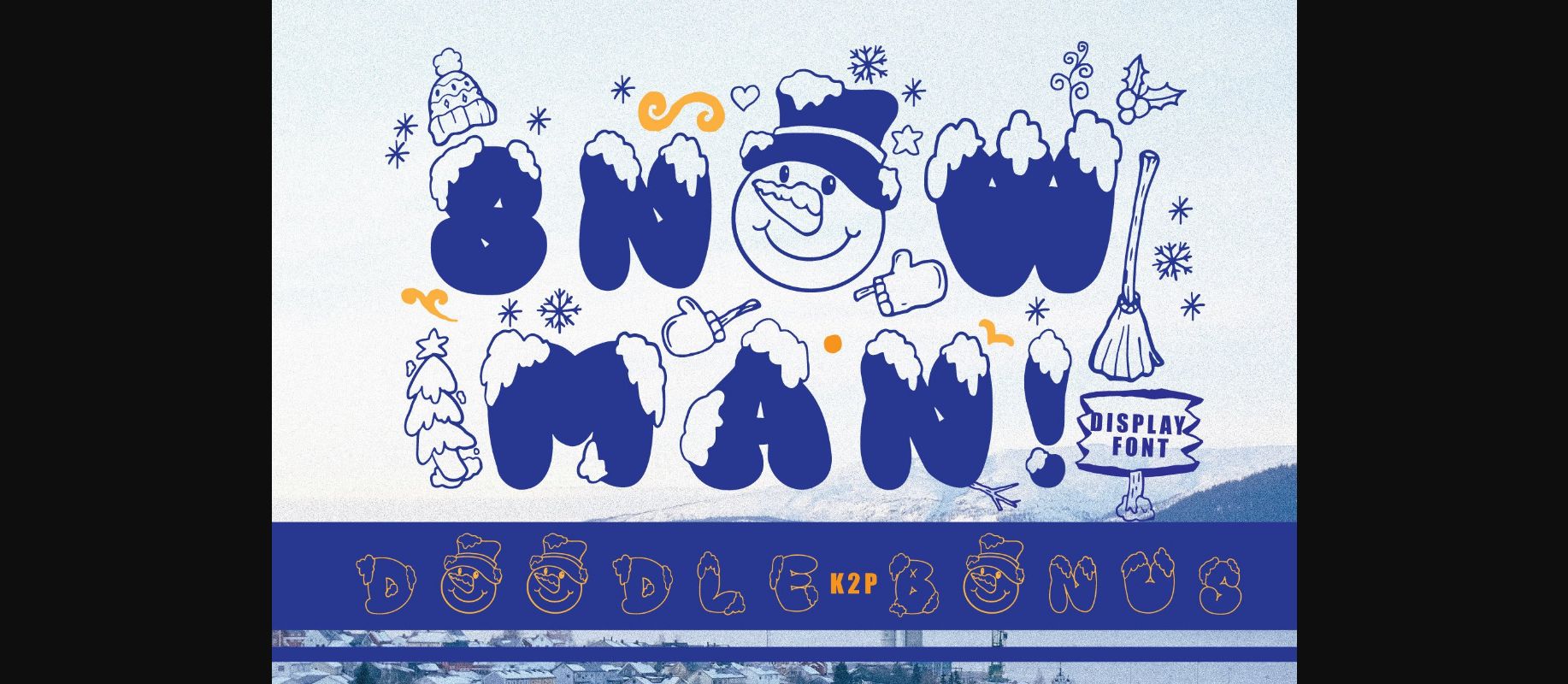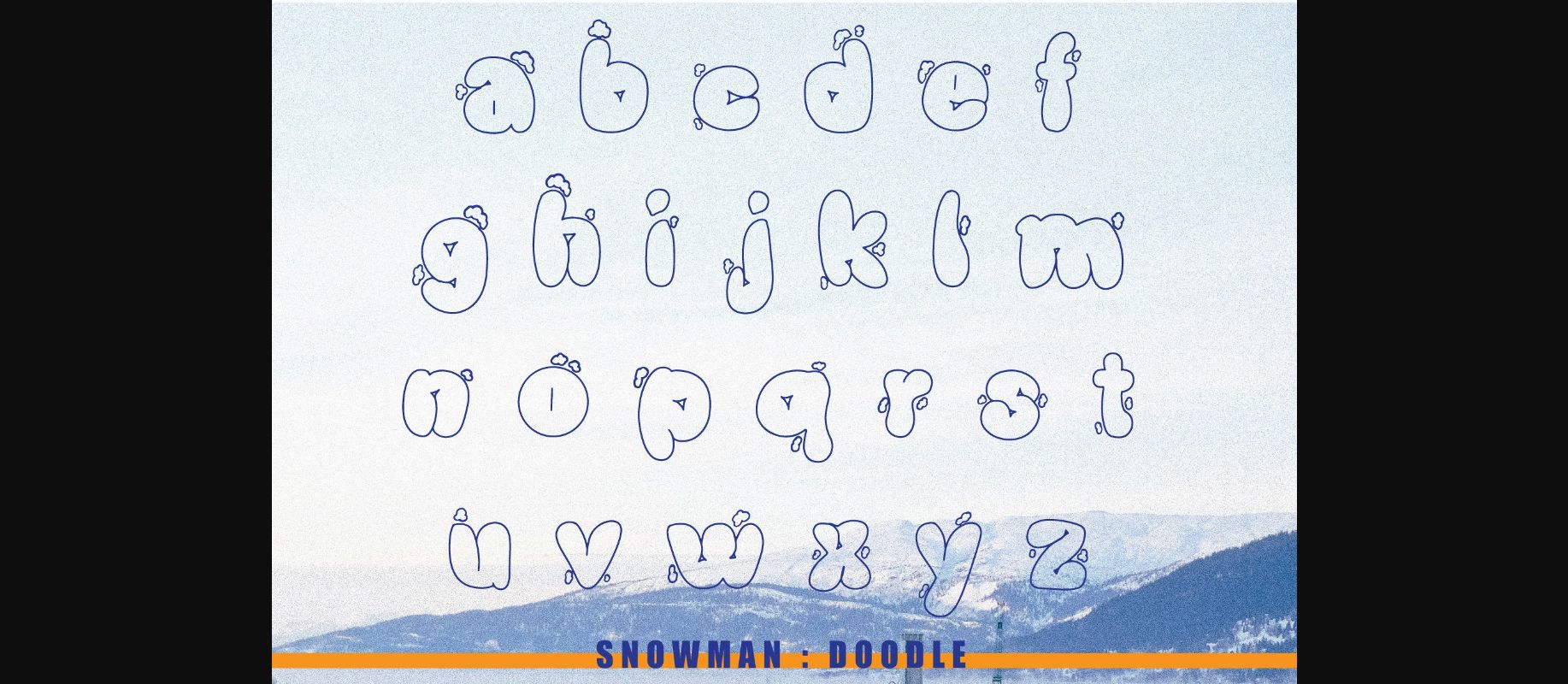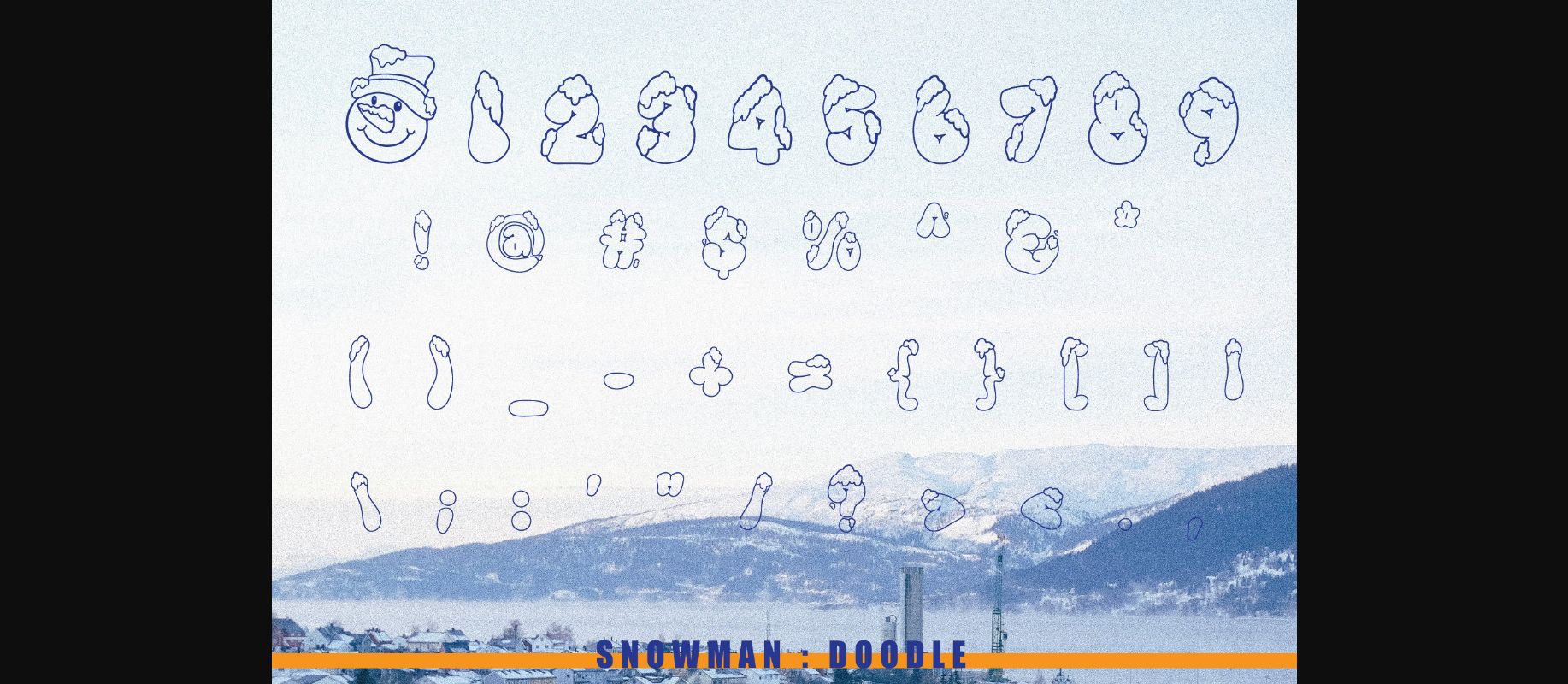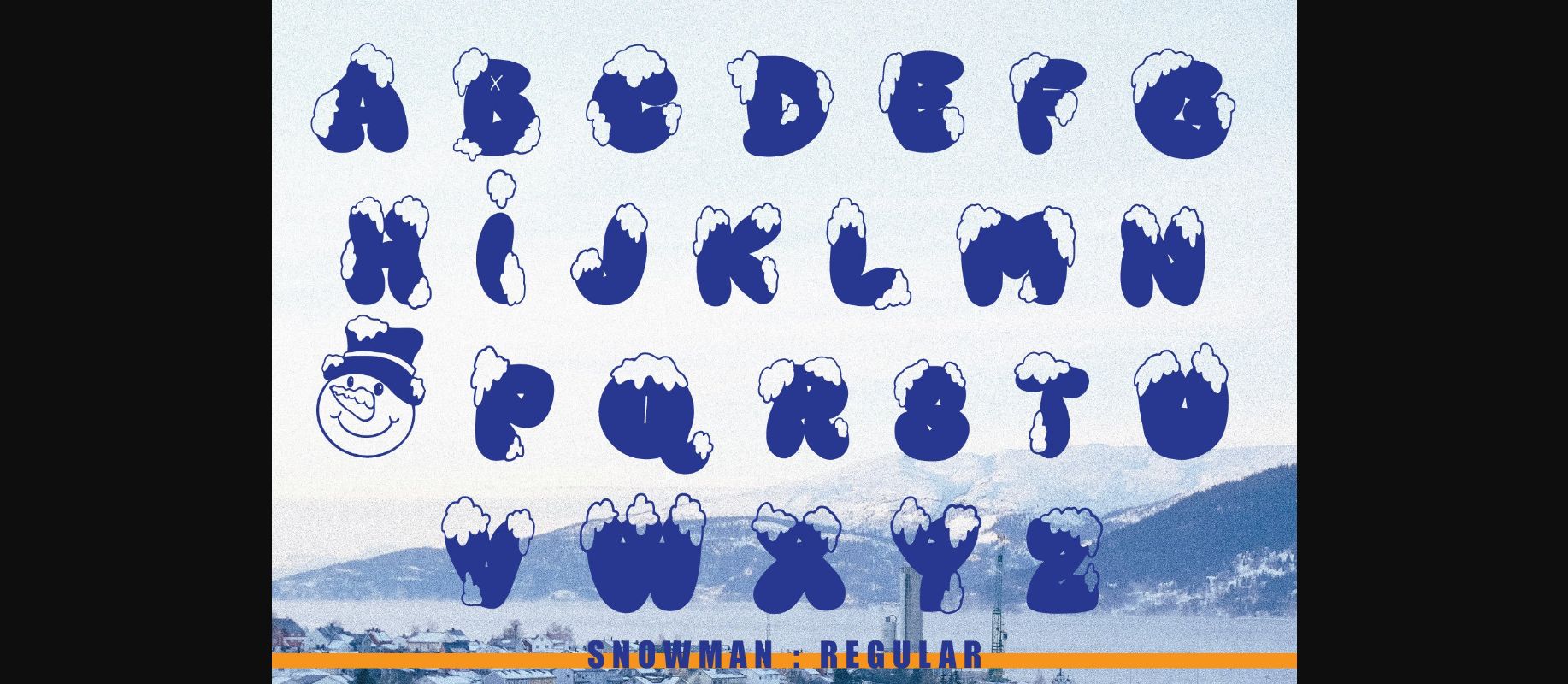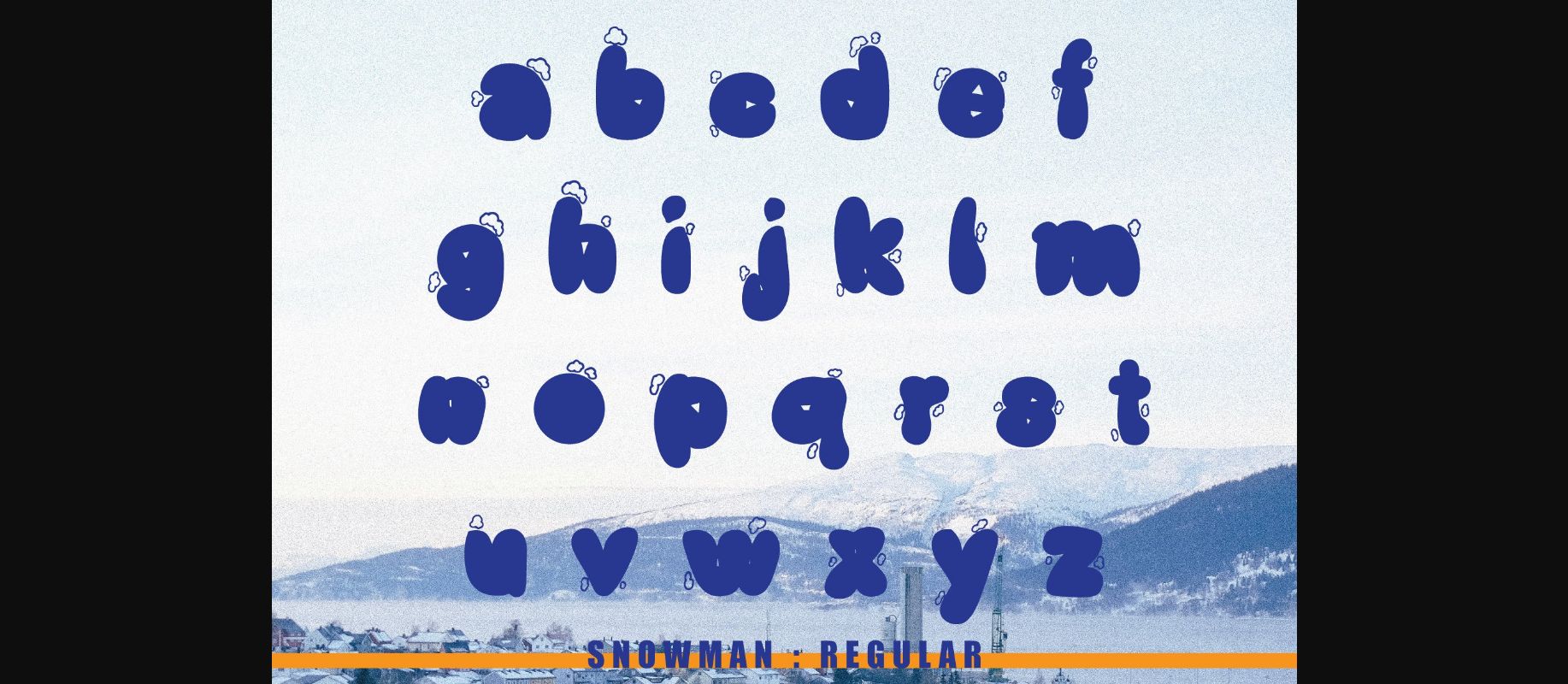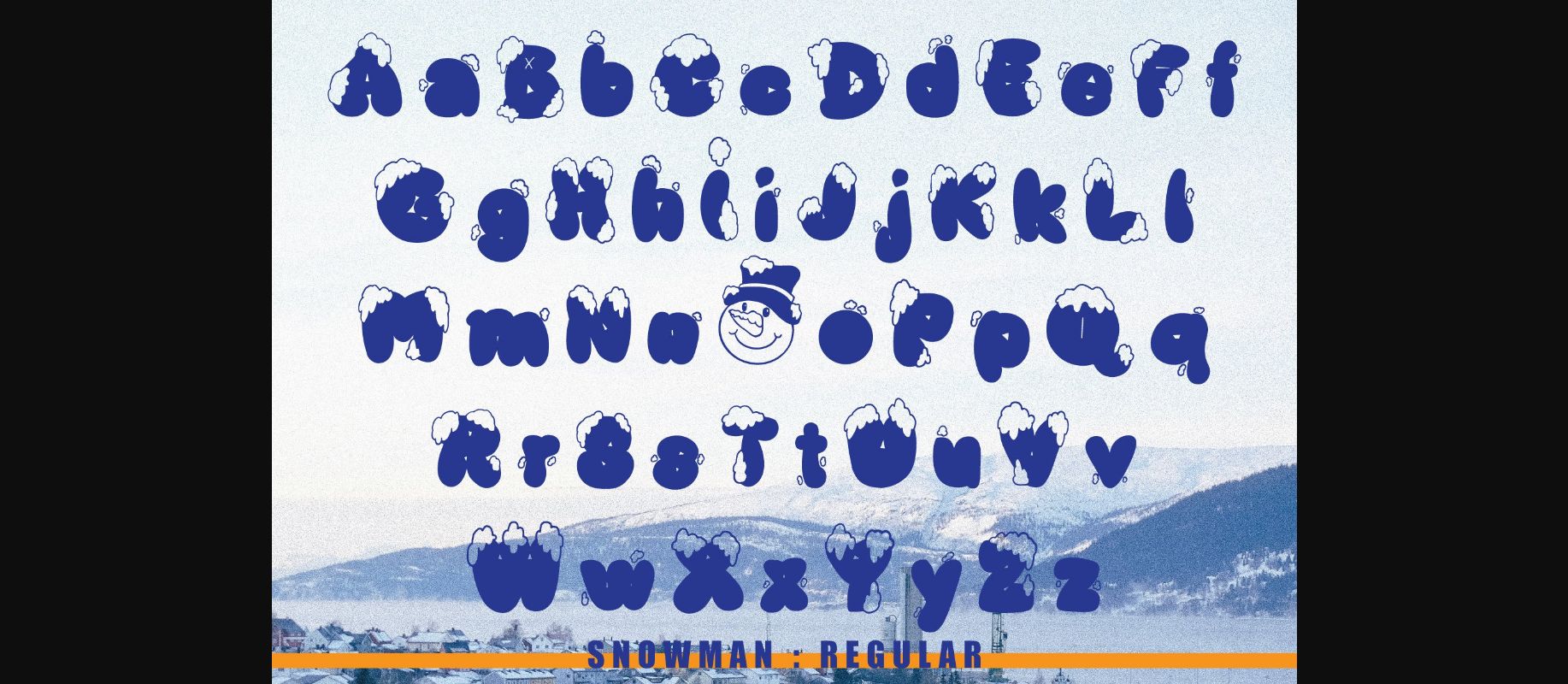
Snowman Font
About Snowman Font
Snowman is a fun, festive, and incredibly unique decorative font. It can be used for various design ideas, particularly those related to the Christmas Holiday.